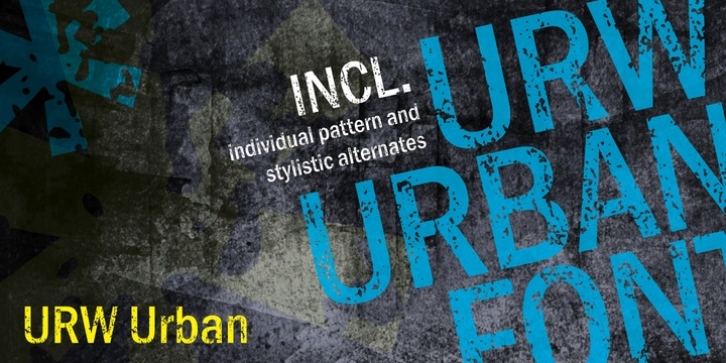
URW Urban follows the trend of pattern fonts. Each character has been provided with an individual pattern created with a special stamp technique. To create a vivid typeface, there is a stylistic alternate for nearly every character. In this way the grotesque has a modern, unconventional look.